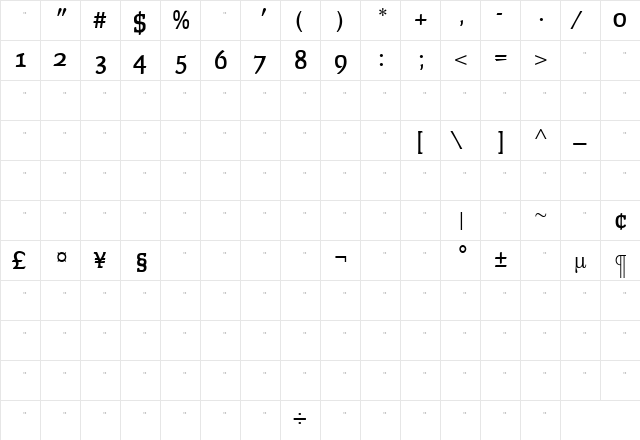
FaustMediumOldStyleFigsTab Roman
Design Context for FaustMediumOldStyleFigsTab Typeface
FaustMediumOldStyleFigsTab brings classic typographic sensibility to the table — its serifs and measured letterforms reflect centuries of print heritage.